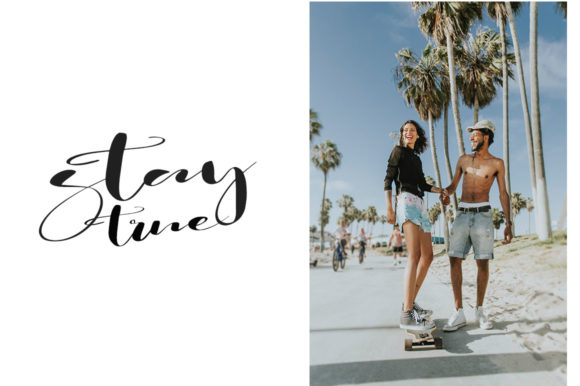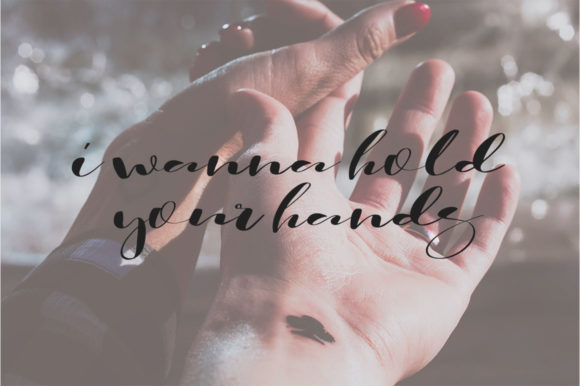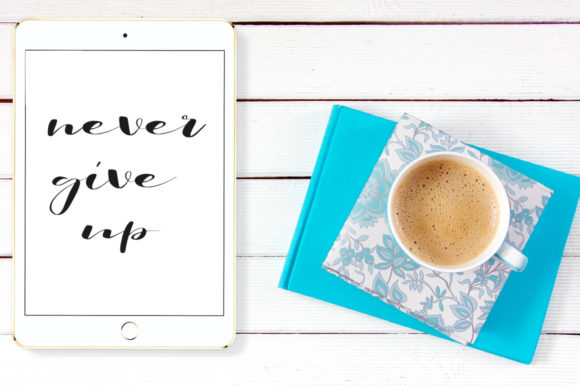
Introduction to Esqulo Font
Have you ever found yourself stuck in front of a blank canvas, desperate for the perfect font to bring your creative project to life? It’s a feeling we’ve all been there, and it’s precisely why discovering a high-quality design resource like the Esqulo Font can be a game-changer. This amazing handwritten typeface has captured the hearts of designers worldwide, and for good reason.
With its modern look and versatility, the Esqulo Font is perfect for logos, photography, watermarks, quotes, blog headers, and much more. Whether you’re working on a personal project or a commercial client, this font is sure to add a touch of elegance and sophistication to your design. And the best part? It’s available for free download, making it an accessible resource for designers of all levels.
Key Features of Esqulo Font
- Unique, modern design with a transparent background, perfect for various design applications
- Includes a range of characters, including uppercase and lowercase letters, numbers, and punctuation marks
- Supports various languages, making it a versatile design resource
Honest Review: Esqulo Font
I recently had the chance to work with the Esqulo Font, and I must say it’s been a pleasant experience. This font is a fantastic design resource for any creative project, offering a high-quality aesthetic that’s perfect for modern designs.
One of the standout features of the Esqulo Font is its transparent background, making it easy to overlay on top of images or other design elements. This feature has been a game-changer for me in my design work.
- ✨ High-quality aesthetic that’s perfect for modern designs
- ✨ Transparent background for easy overlay
- ⚠️ Limited character set, may not be suitable for projects requiring a wide range of characters
- ⚠️ Not ideal for use in small font sizes, may become difficult to read
Overall, I’m impressed with the Esqulo Font and would highly recommend it for any creative project. While it may have some limitations, its high-quality aesthetic and transparent background make it a valuable design resource.
Tips for Getting the Most Out of Esqulo Font
Experiment with different font sizes and styles to create a unique look. Use the transparent background feature to create a sense of depth and layering in your designs.
Common Use Cases for Esqulo Font
The Esqulo Font is perfect for a variety of creative projects, including logos, brochures, posters, and social media graphics. Its high-quality design makes it ideal for professional and personal use alike.